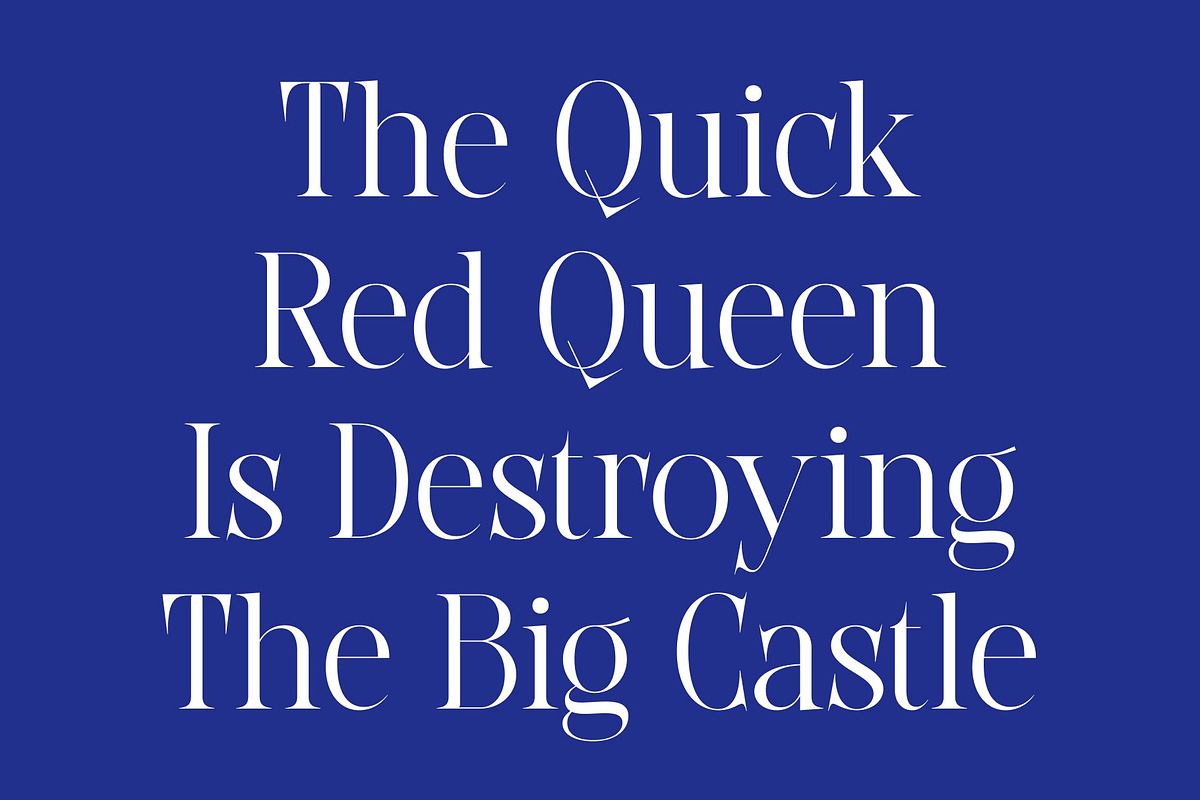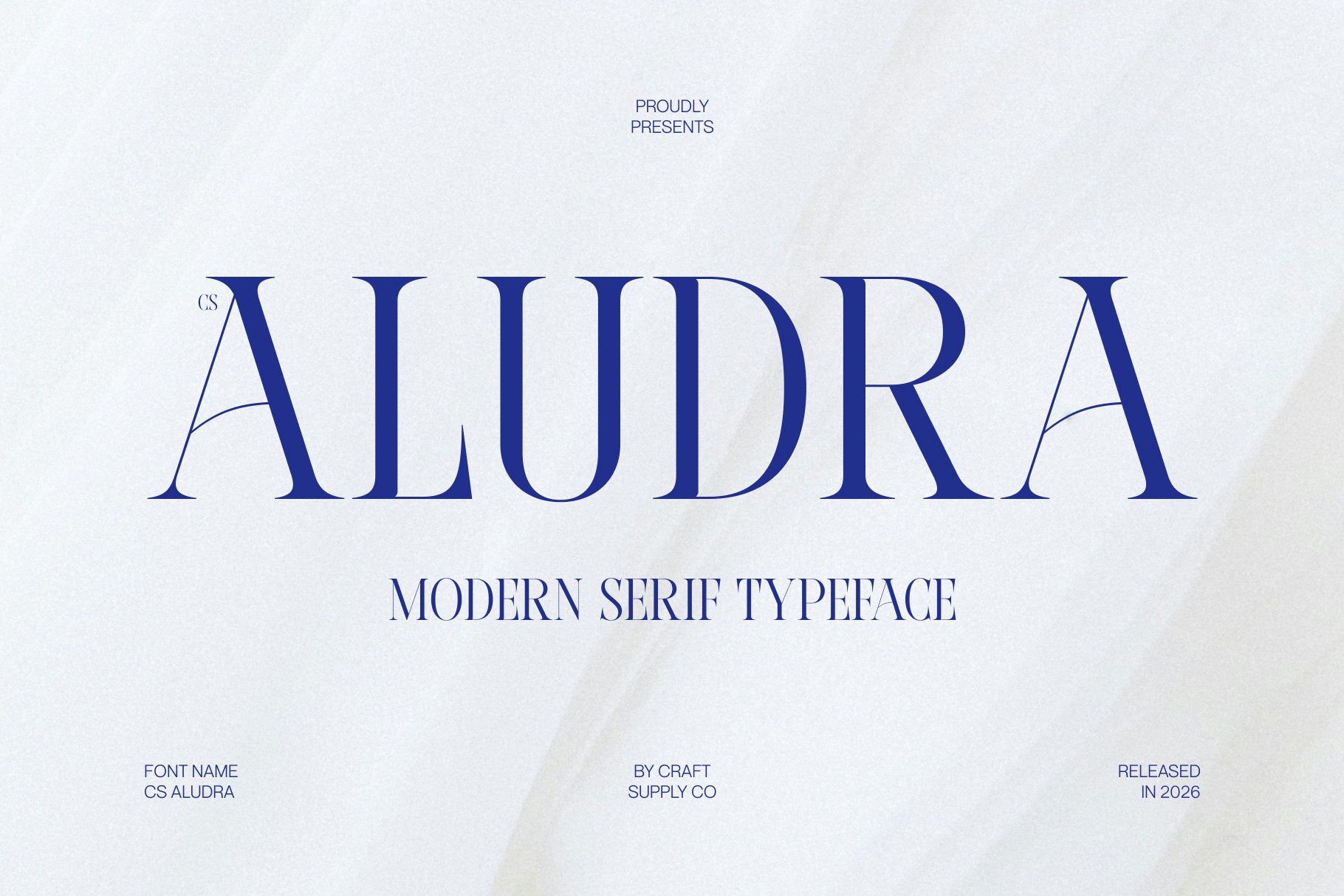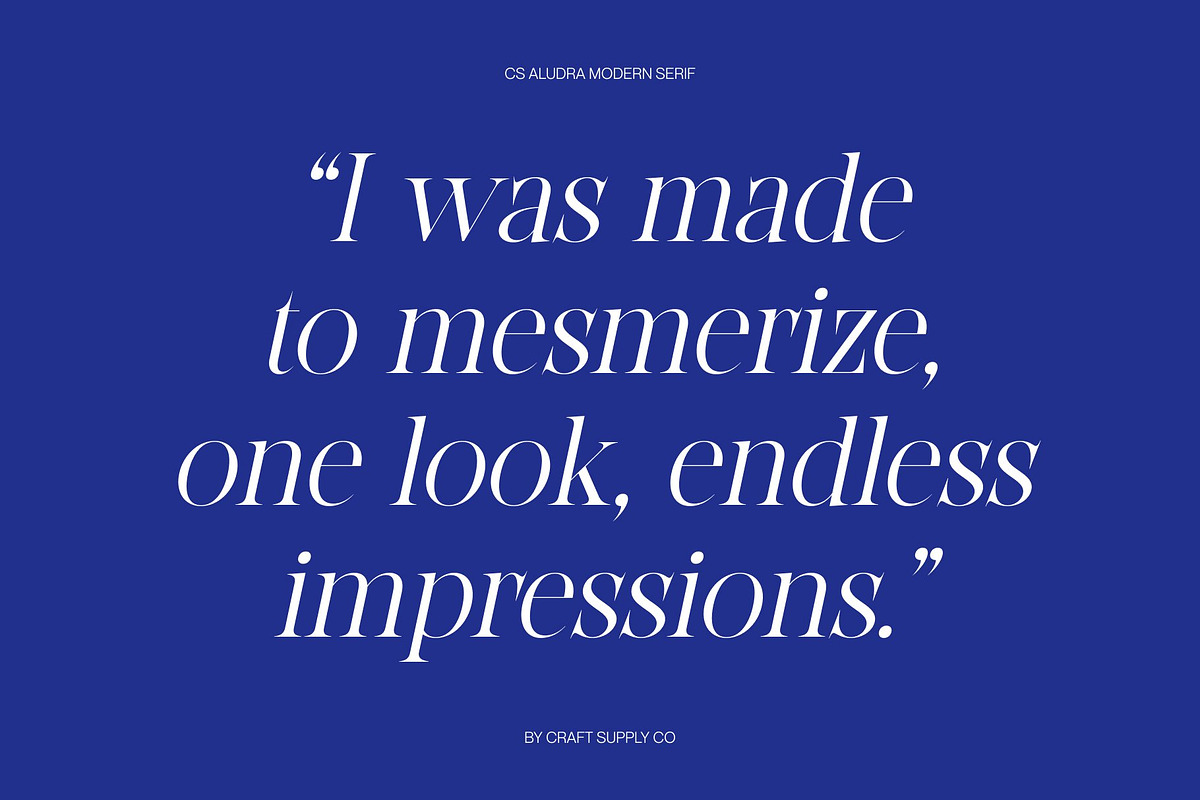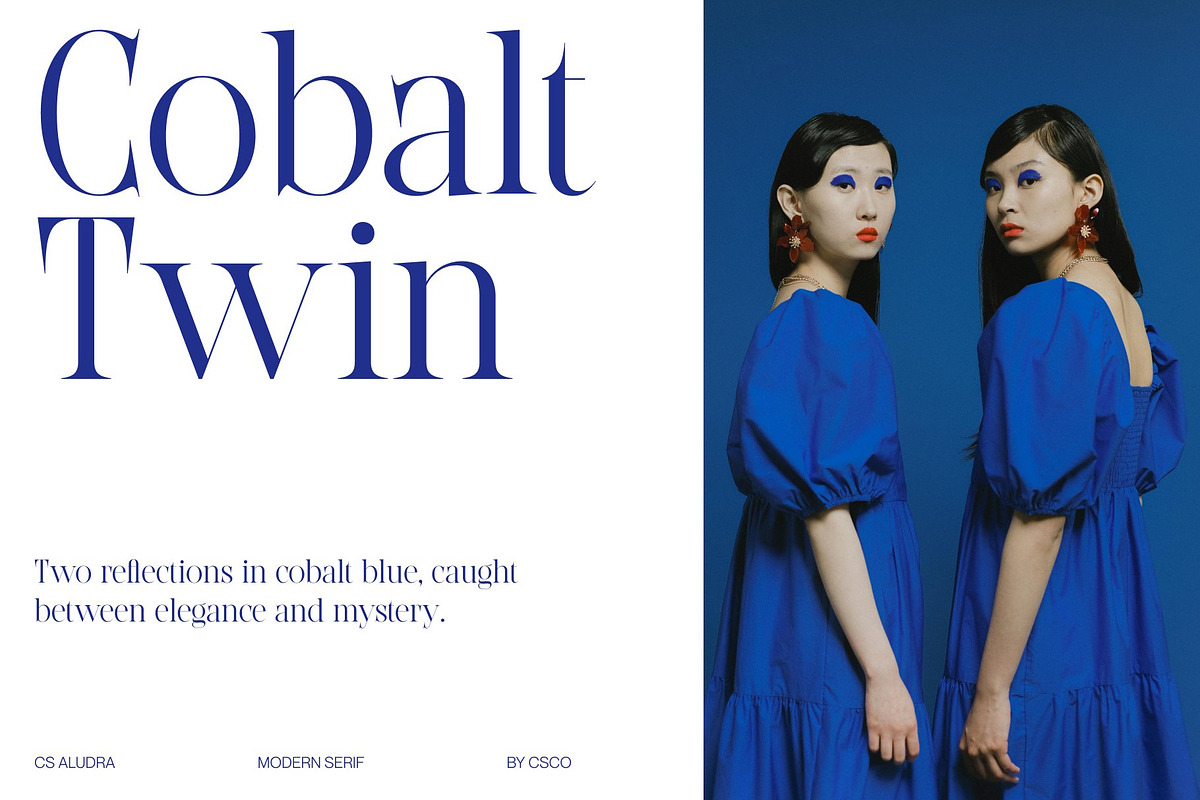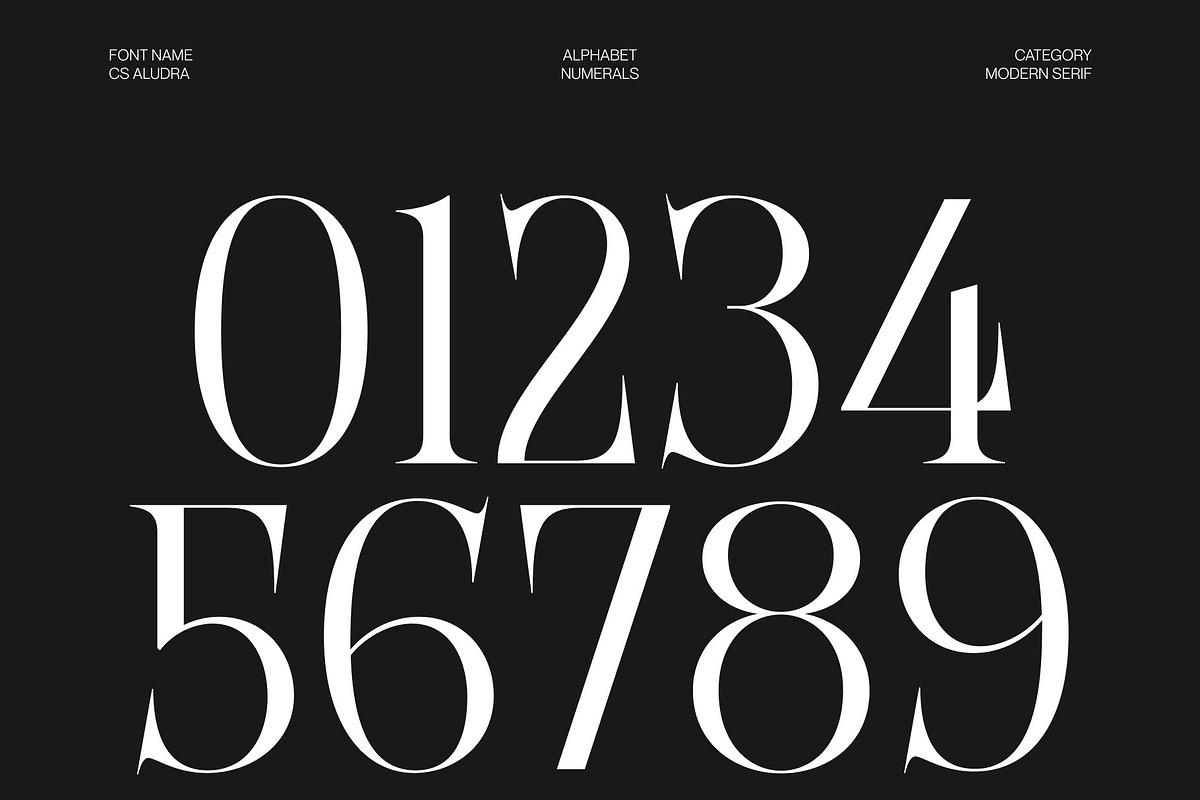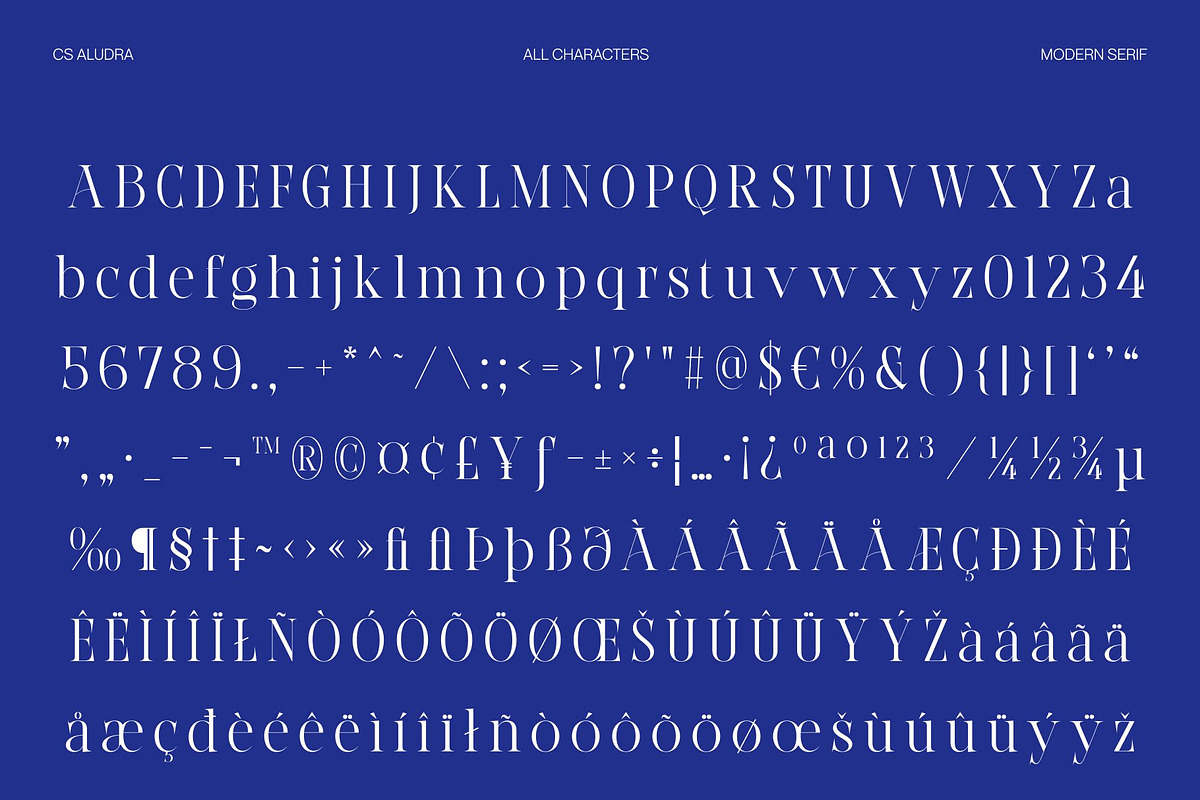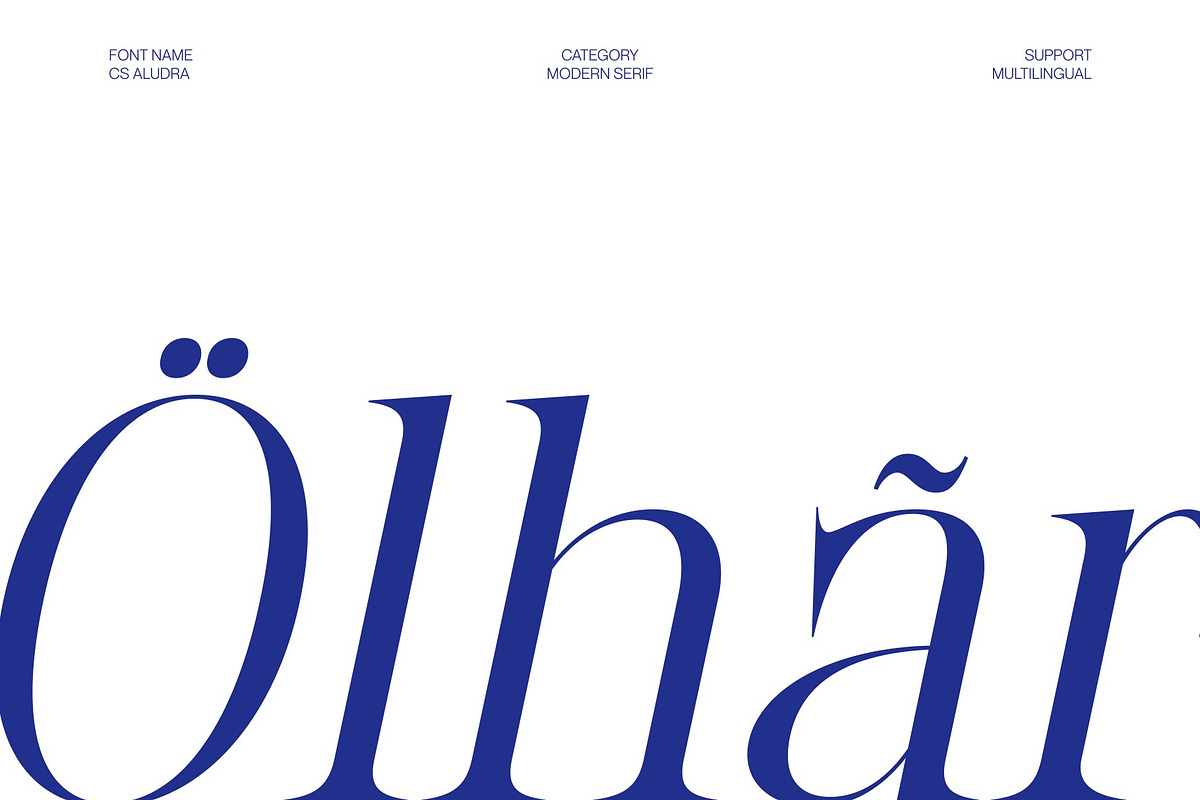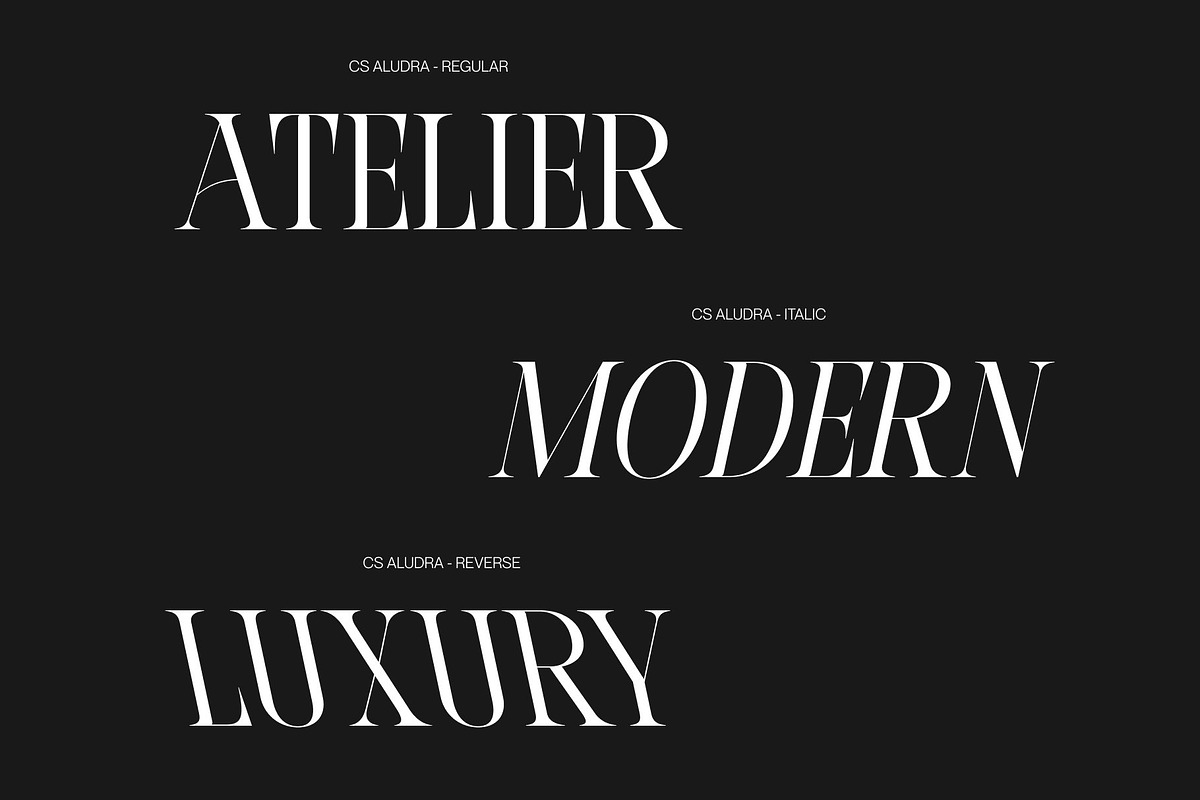
CS Aludra – Modern Serif Font
CS Aludra – Luxury Serif Font with High-Contrast Elegance
Luxury Serif with Timeless Sophistication This is a luxurious serif font designed to embody elegance, refinement, and premium style. With its graceful proportions and striking high-contrast construction, this typeface creates a sophisticated visual presence that feels both timeless and contemporary. It is crafted for designers who seek typography that communicates exclusivity and elevated taste.
High Contrast with Refined Beauty The defining feature of this font lies in its elegant high-contrast strokes, where delicate thin lines meet bold forms to create dramatic visual harmony. This contrast adds depth, sophistication, and a sense of luxury to every letterform, allowing text to appear graceful and visually captivating. The result is typography that instantly attracts attention while maintaining refinement.
Elegant Character with Premium Appeal This font balances classic serif beauty with modern precision, creating a font that feels polished and versatile. Its refined details and carefully crafted structure give it a distinguished personality that works beautifully in both minimalist and decorative compositions. Every word appears stylish, confident, and effortlessly luxurious.
Perfect for Branding, Fashion, and High-End Design From luxury branding and fashion campaigns to logos, magazines, and premium packaging, this font offers a versatile typographic solution. Its combination of high-contrast elegance, sophisticated character, and timeless appeal ensures your designs feel exclusive, refined, and visually unforgettable.
CS Aludra Regular
CS Aludra Italic
CS Aludra Reverse Italic